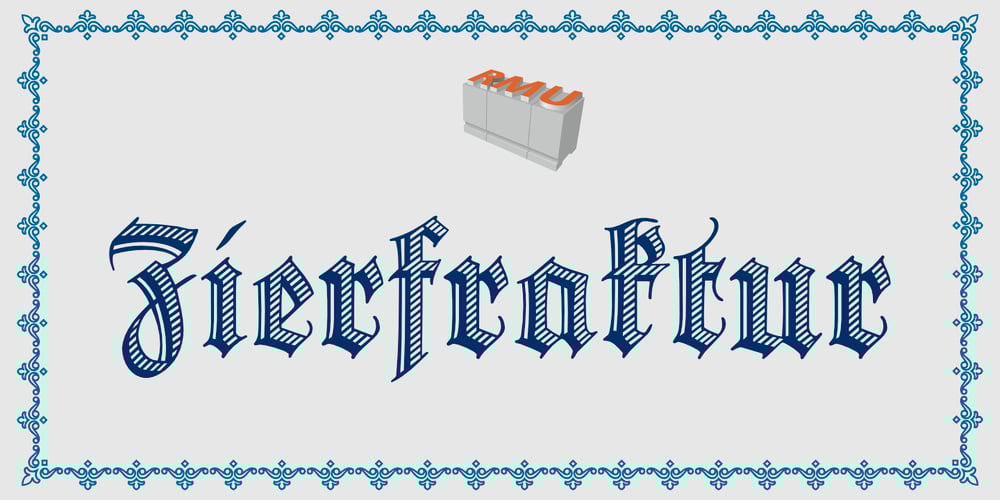
Zierfraktur Font Family was designed by Rudolf Koch, Ralph M. Unger and published by RMU. Zierfraktur contains 1 styles and family package options. This highly stylish, engraved blackletter font was cut by Rudolf Koch between 1919 and 1921 for Klingspor in Offenbach on Main. It was then sold under the name Deutsche Zierschrift. I completely redraw and extended this font and called it Zierfraktur. To take full advantage of this fine headline blackletter font, please use it from, at least, 18 points upward. This font contains a bunch of useful ligatures, and it is recommended to activate both Standard and Discretionary Ligatures. The round s can be reached by typing the # key, and you get the numero sign by typing the combination N-o-period and activating the OT feature Ordinals.